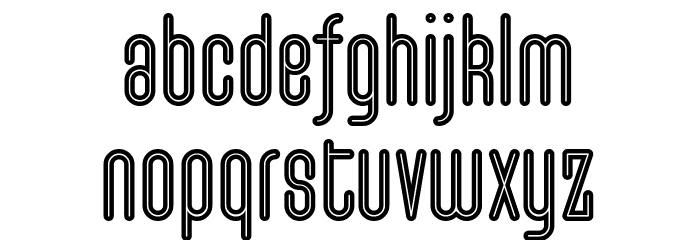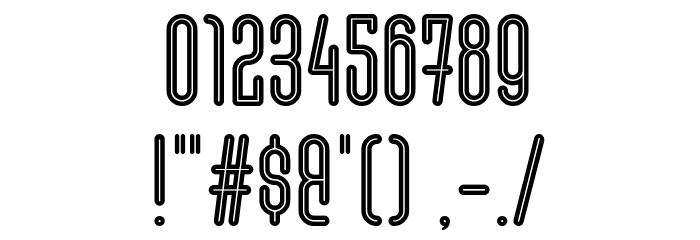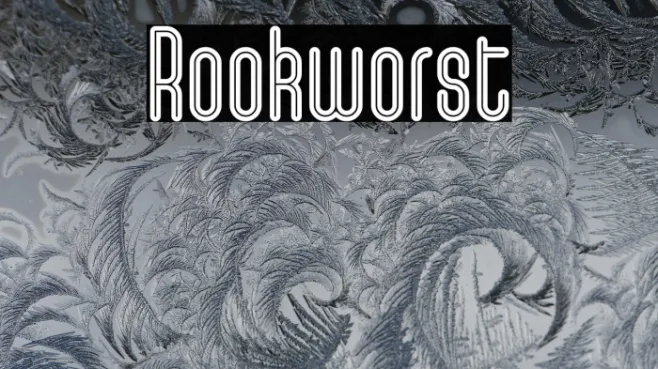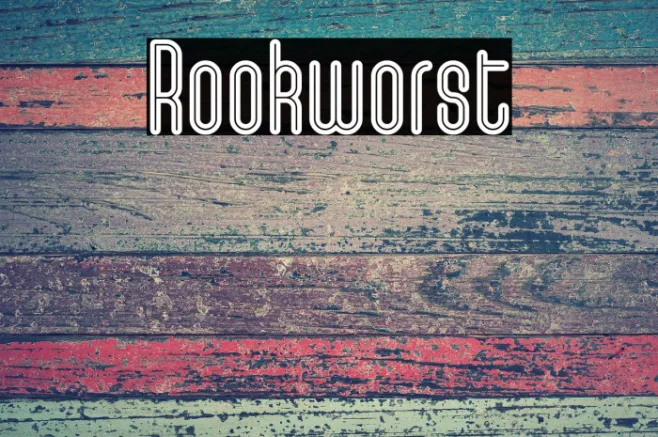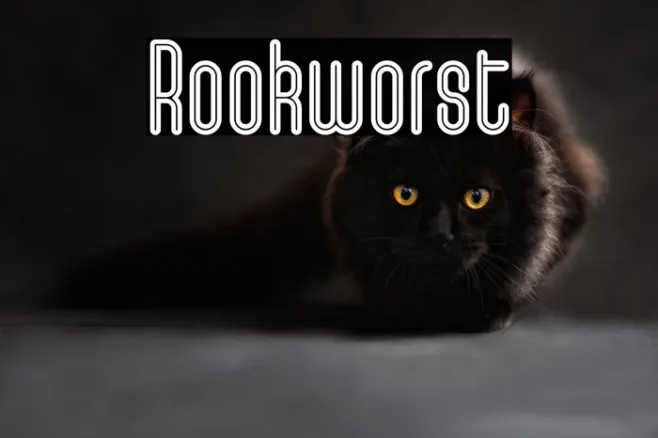
Rookworst Font
This font features a unique double-line structure that creates a hollow, outlined appearance. Each character is crafted with precision, maintaining consistent thickness throughout the strokes. The uppercase letters are bold and striking, while the lowercase letters retain a playful yet sophisticated style. Numbers and special characters are designed to match the overall aesthetic, ensuring a cohesive look. The font's geometric nature and clean lines make it ideal for modern and contemporary designs, adding a touch of elegance and creativity.
A modern, outlined font with a double-line structure and geometric design.
- Proposed Projects: Ideal for branding, posters, headlines, and creative projects that require a modern and eye-catching typeface.